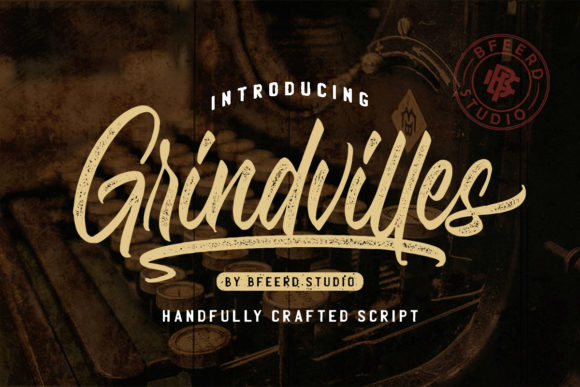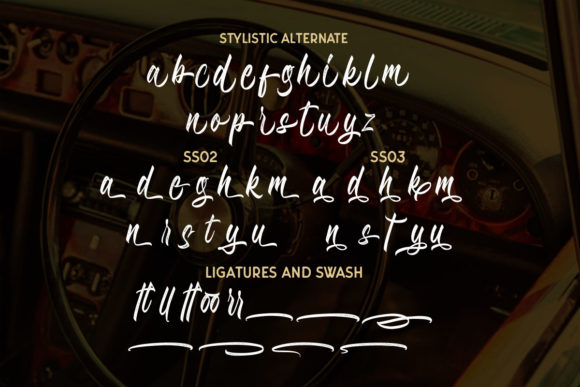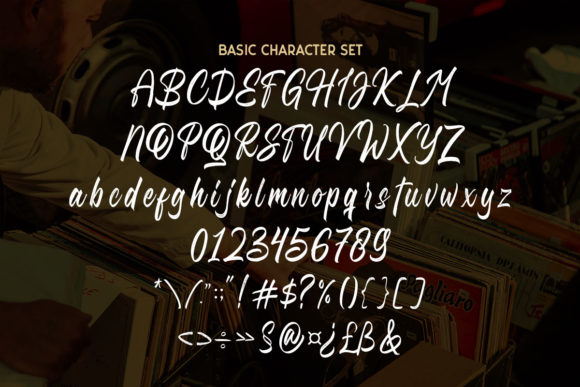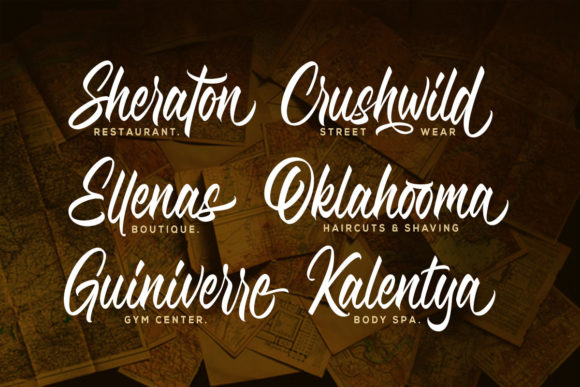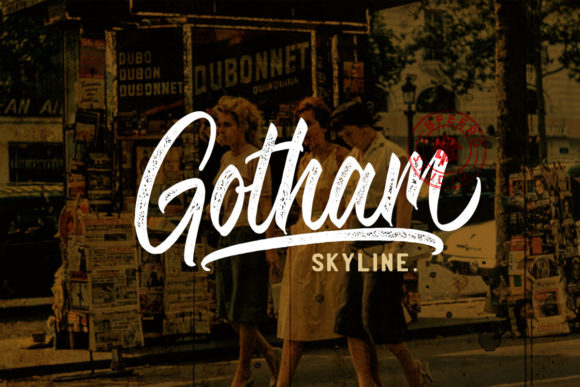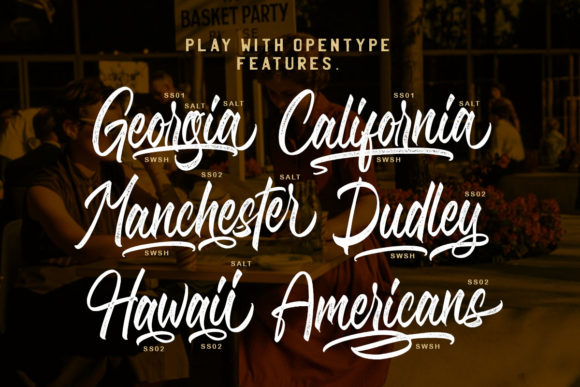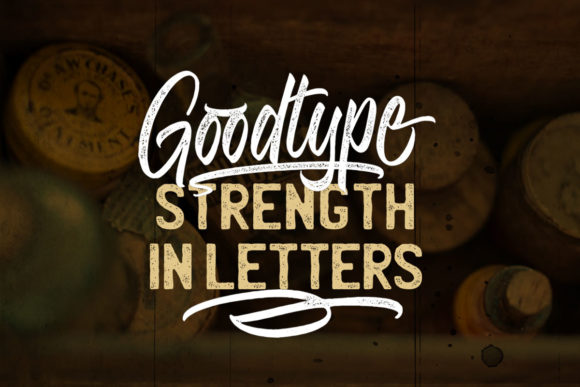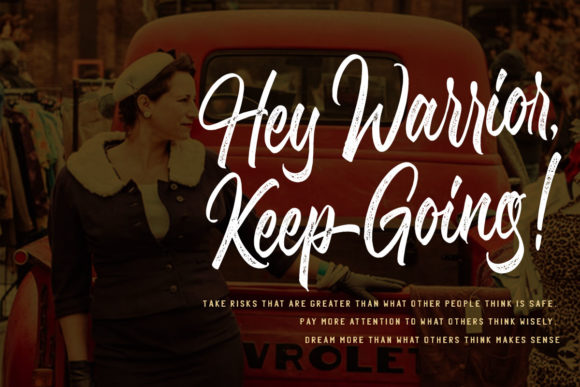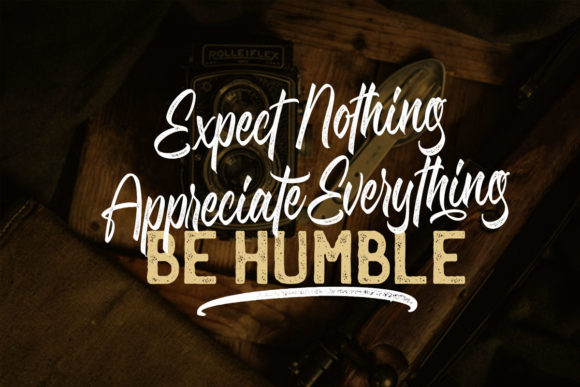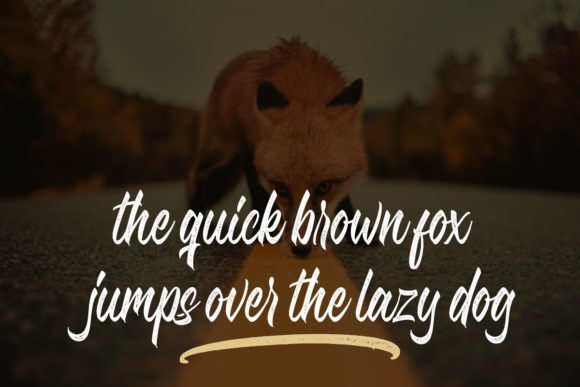
HomeScript FontsGrindvilles Duo Font Script Fonts Grindvilles Duo Font FacebookXPinterestWhatsApp Grindvilles Duo Font Poster 2 Grindvilles Duo Font Poster 3 Grindvilles Duo Font Poster 4 Grindvilles Duo Font Poster 5 Grindvilles Duo Font Poster 6 Grindvilles Duo Font Poster 7 Grindvilles Duo Font Poster 8 Grindvilles Duo Font Poster 9 Grindvilles Duo Font Poster 10 Grindvilles Duo Font Poster 11 About Grindvilles Duo Font Grindvilles is a stunning vintage-style font duo that will turn any design idea into a true standout! DOWNLOAD ON CREATIVE FABRICAThis font is sold and delivered by Creative Fabrica. Font Canyon may earn a commission if you buy through this link. People also explored Article Script Font Snow Page Font Pink Diary Font The Family Font Premier Font Putri Echty Font Grateful in Heart Font Tsuchiya Font Milk Tea Font 297 0 TagsGrindvilles Duo Font Previous articleAlchemilla FontNext articleButterscotch Font LEAVE A REPLY Cancel reply Comment: Please enter your comment! Name:* Please enter your name here Email:* You have entered an incorrect email address! Please enter your email address here Website: Save my name, email, and website in this browser for the next time I comment. Personal Use Free Ancient Script Personal Use Free Read more about this font Stentiga Personal Use Free Read more about this font Wadjet Personal Use Free Read more about this font Manhattan Personal Use Free Read more about this font BLOG To increase your work productivity, choose the most readable fonts. In today's fast-paced work environment, where digital communication and information consumption are integral to our daily routines, the choice of fonts can significantly impact... Best Fonts for YouTube Videos: Make Your Thumbnails Stand Out Using Fonts in Digital Marketing: Tips to Strengthen Your Brand Identity Modern Sans-Serif Fonts That Brands Love in 2025